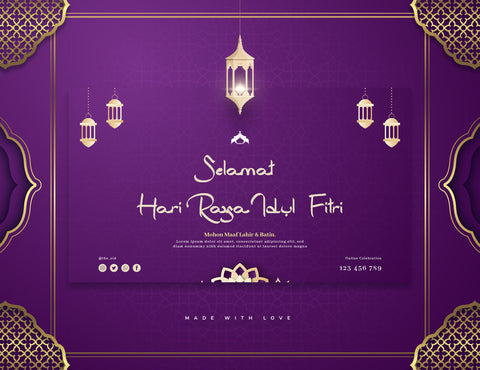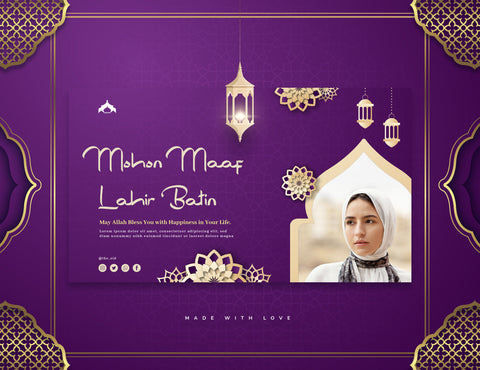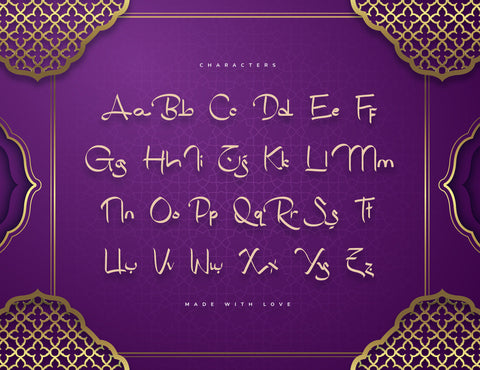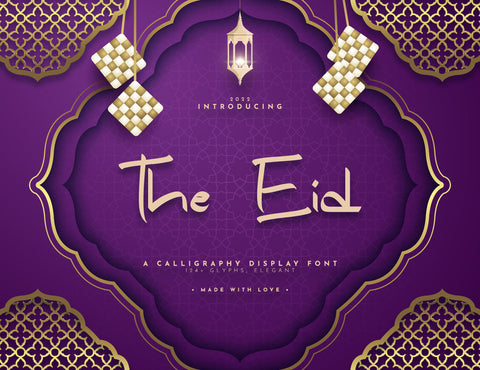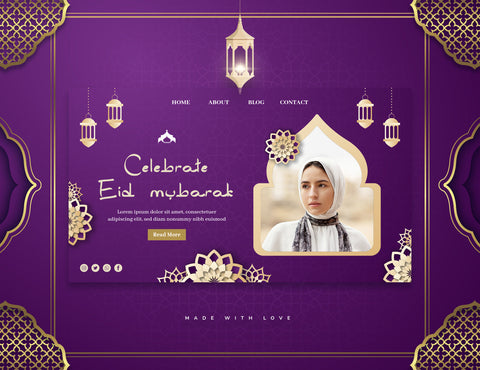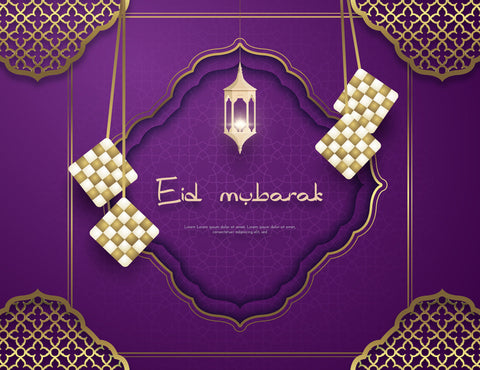
The Eid Display Font
Celebrating the one of memorable months for Moslems, Ramadhan, we made the one of Calligraphy and Display Font. "The Eid" is the one of Display Font collection, made with special brush and shape. "The Eid" is perfect for Ramadhan project design, poster, social media post, and greeting card. Inspired from Ramadhan Months, this font also giving us Arabian feels because of its cursive. Delicate and irresistible, "The Eid" is elegant also aesthetic. It will make your design look more neat and classy. As commonly font, "The Eid" features with 26 alphabet, number, and some symbols.